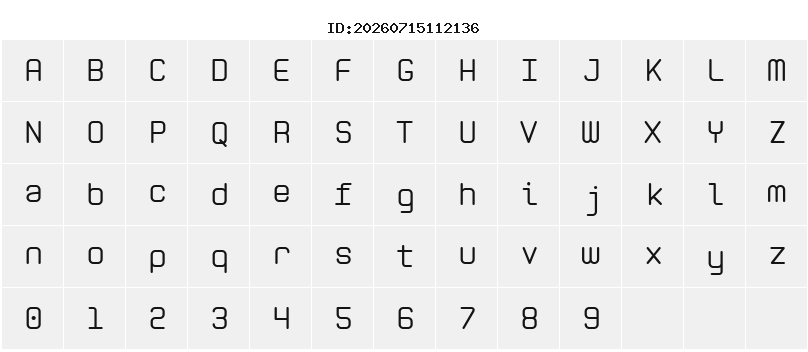
About Zolan Mono BTN.ttf
Zolan Mono BTN.ttf is a modern, elegant sans-serif font designed for ultimate readability and visual harmony. Perfect for branding, headlines, web design, and print materials.